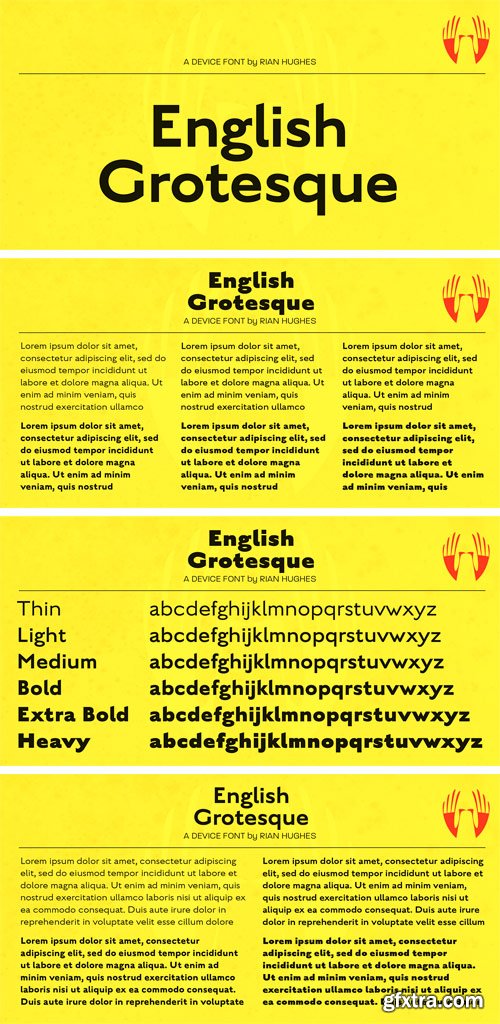
English Grotesque is based on the proportions of an early 20th century signwriter’s sans, emphasising the characteristic idiosyncrasies of type of the period. Sharing a similar Roman circle-and-square construction as Gill Sans or Johnston Railway, it has a wide T and W, a narrow S, and a long-tailed R.